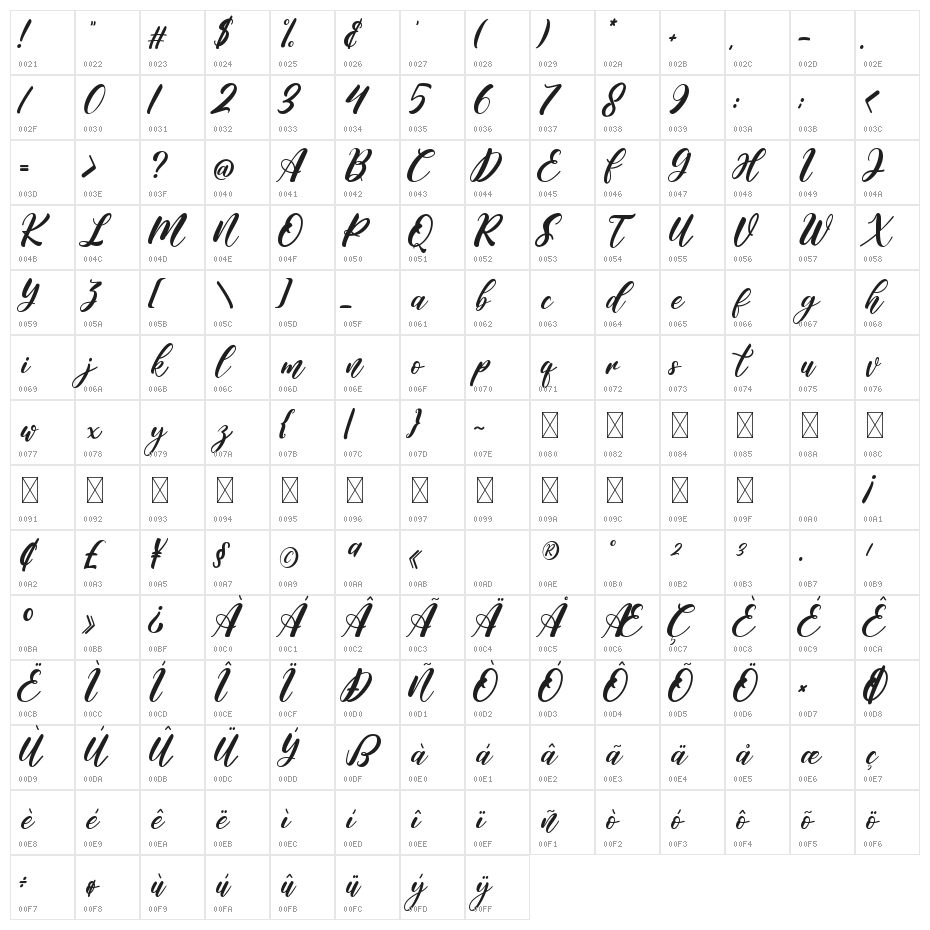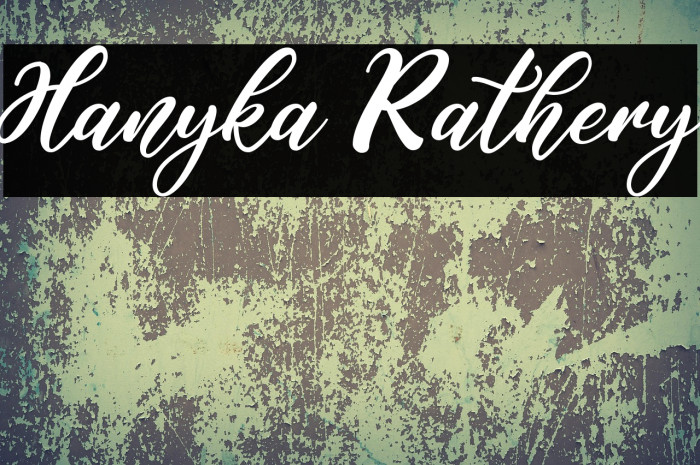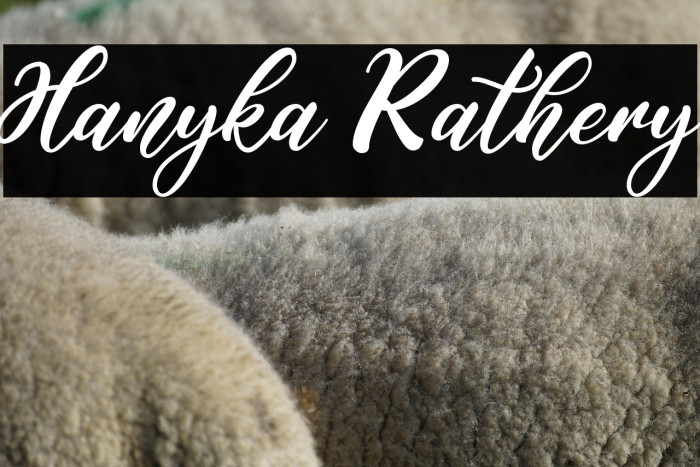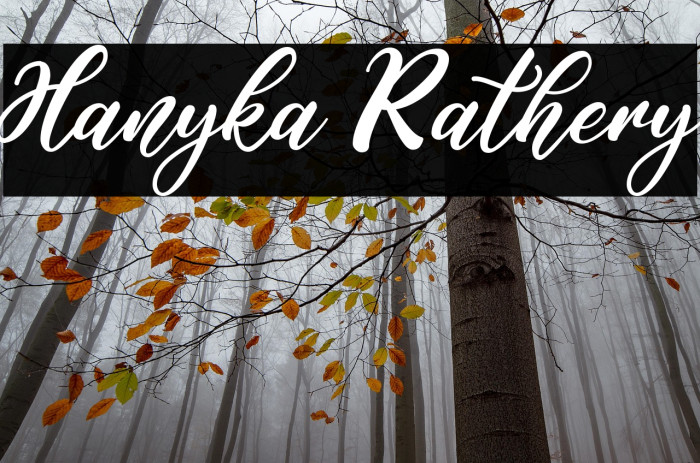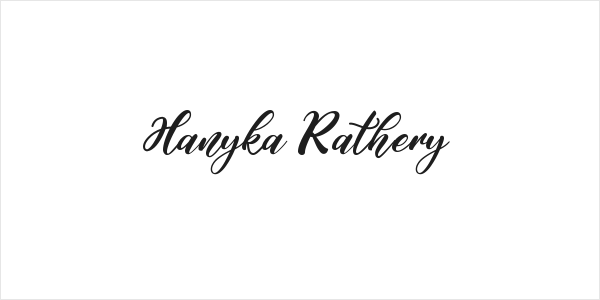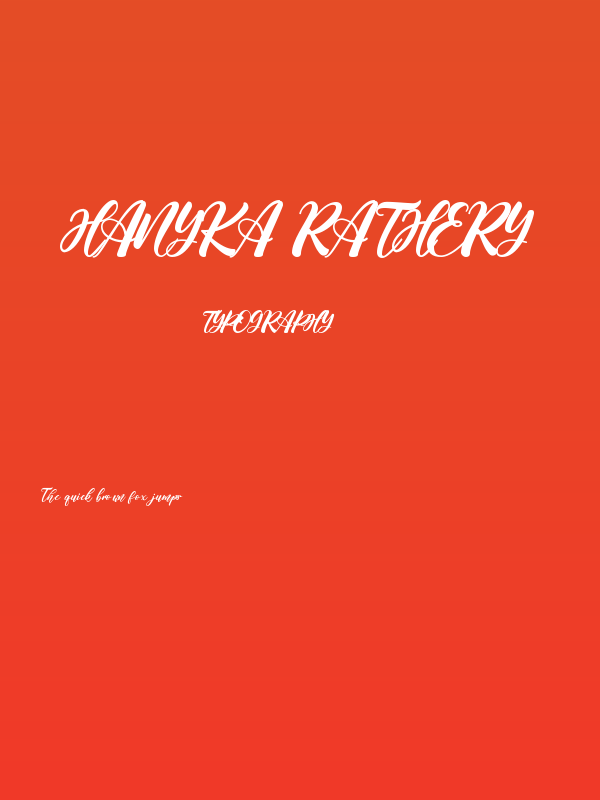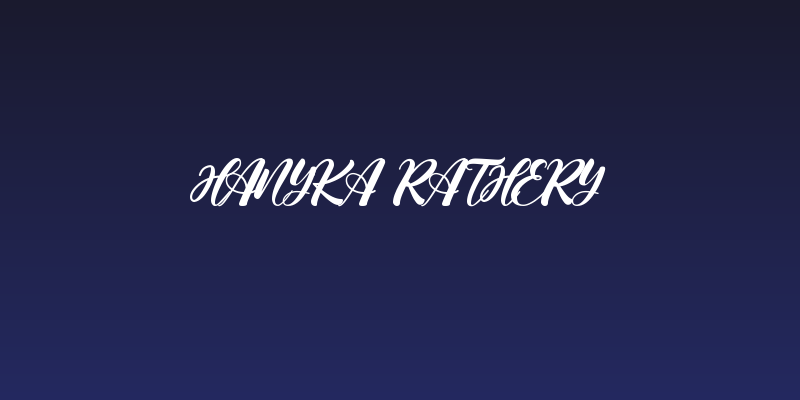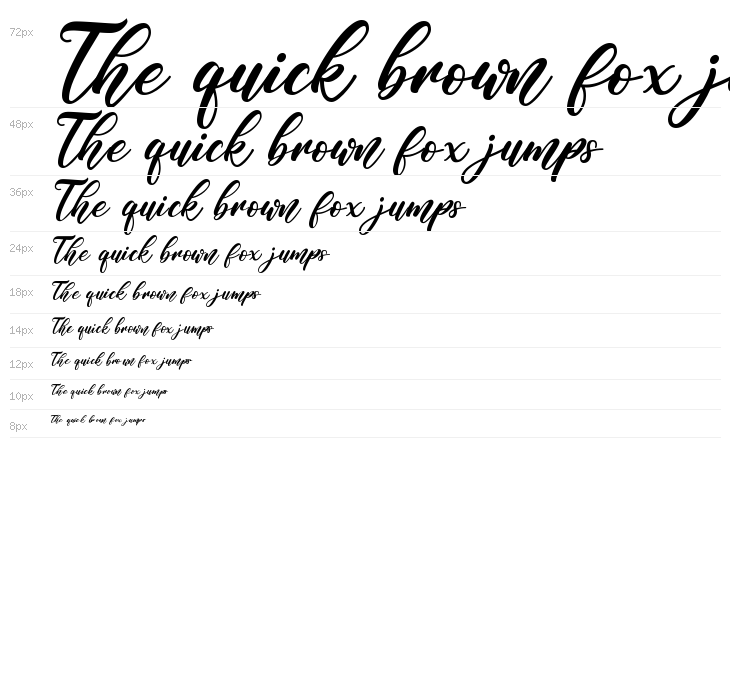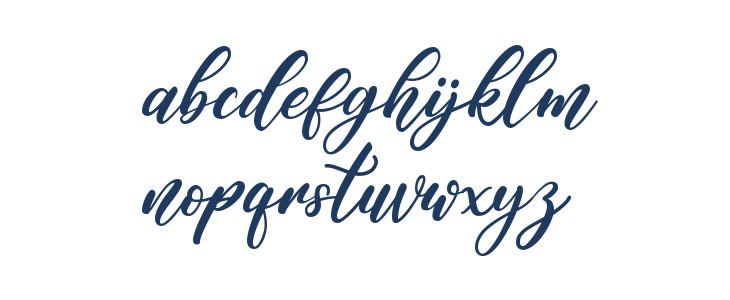
Hanyka Rathery Font
Hanyka Rathery Description
This font features a flowing, cursive style with elegant, sweeping strokes that give it a handwritten appearance. The letters are connected, creating a sense of continuity and fluidity. The uppercase letters are bold and expressive, while the lowercase letters maintain a consistent rhythm and balance. The numerals and special characters are designed to complement the overall script style, adding versatility to its use. The font's playful yet sophisticated look makes it suitable for a variety of creative projects.